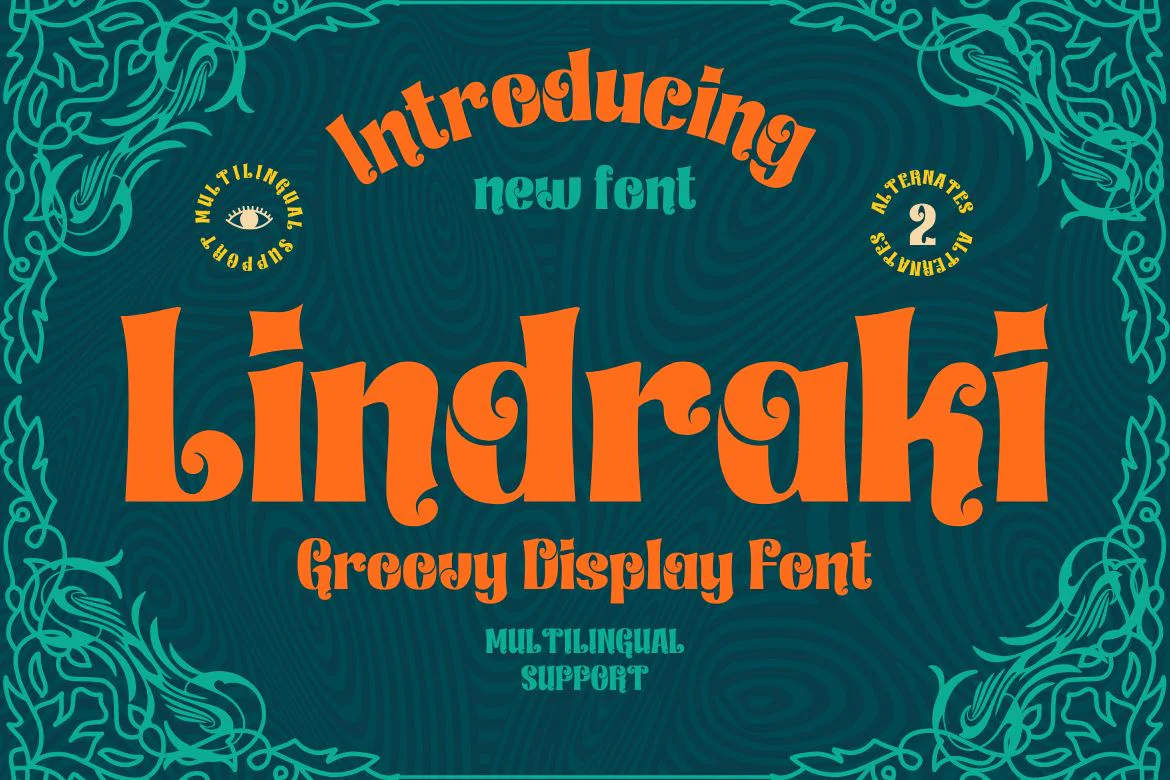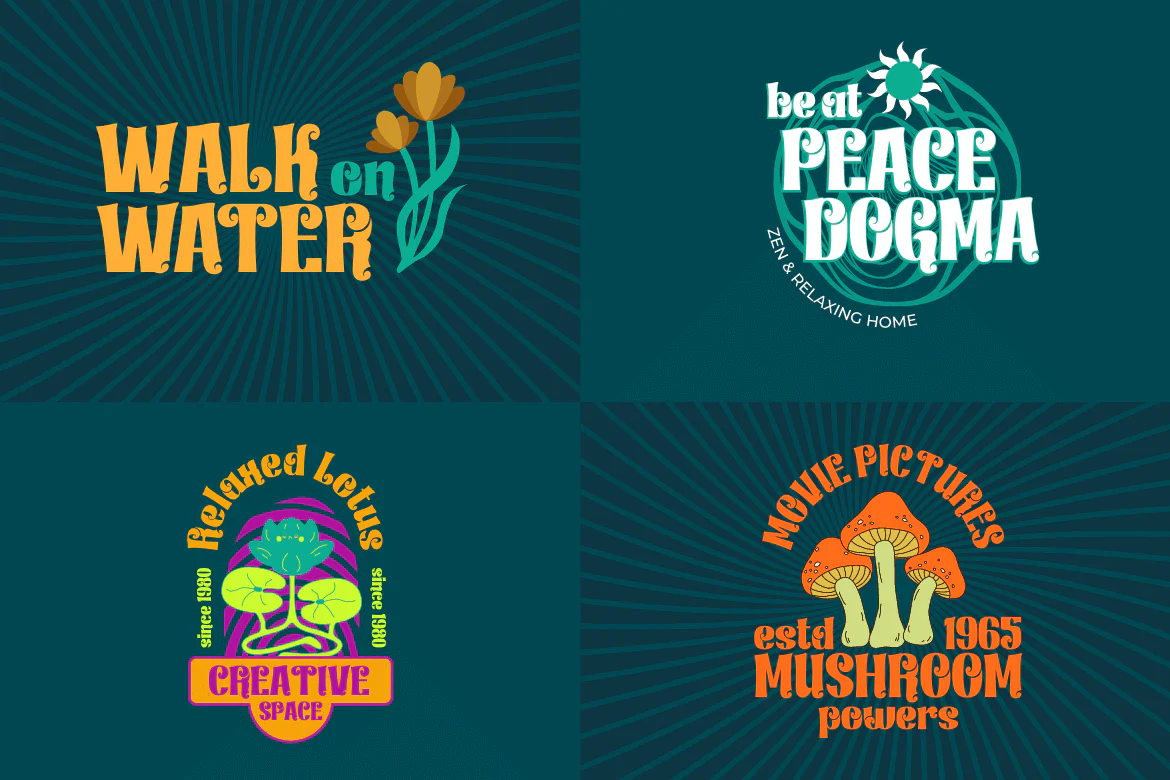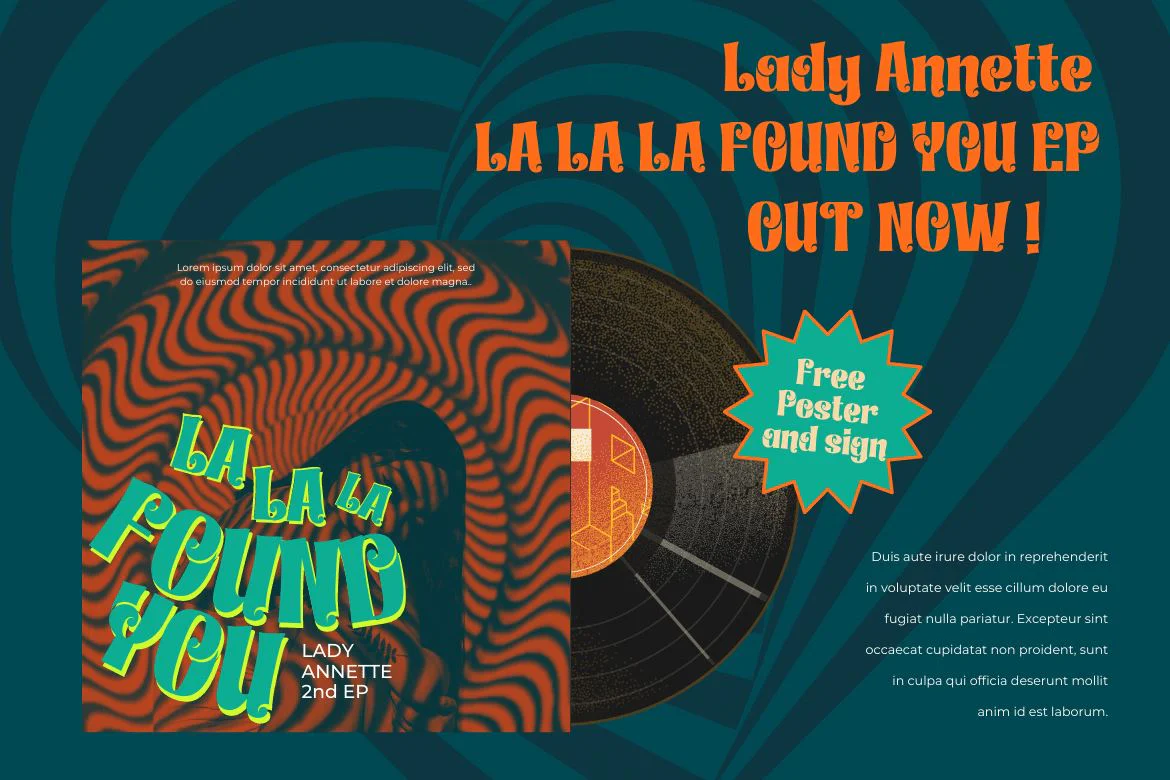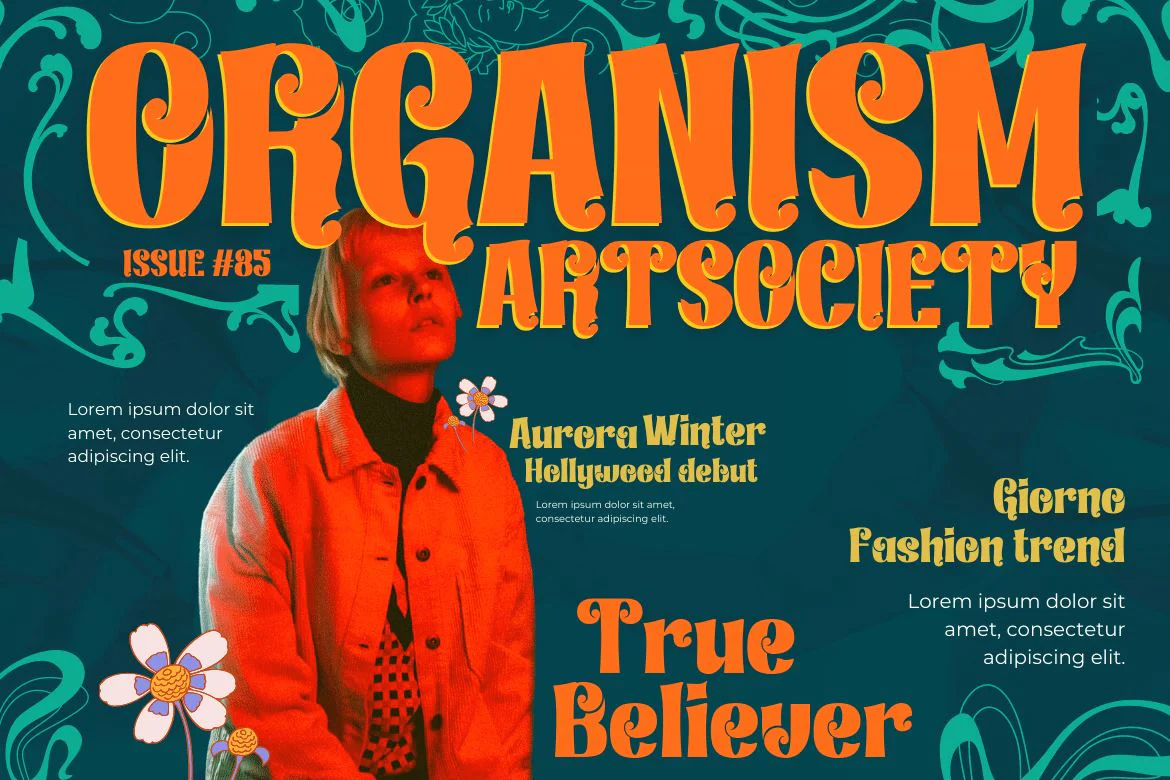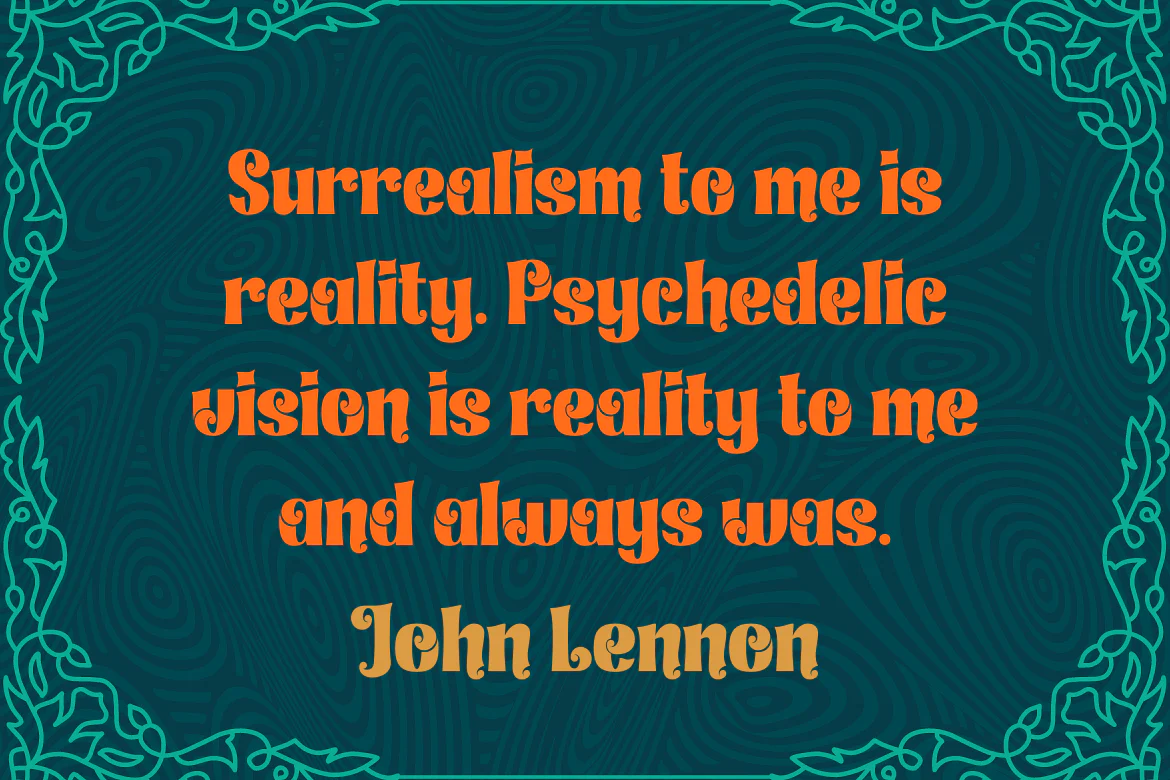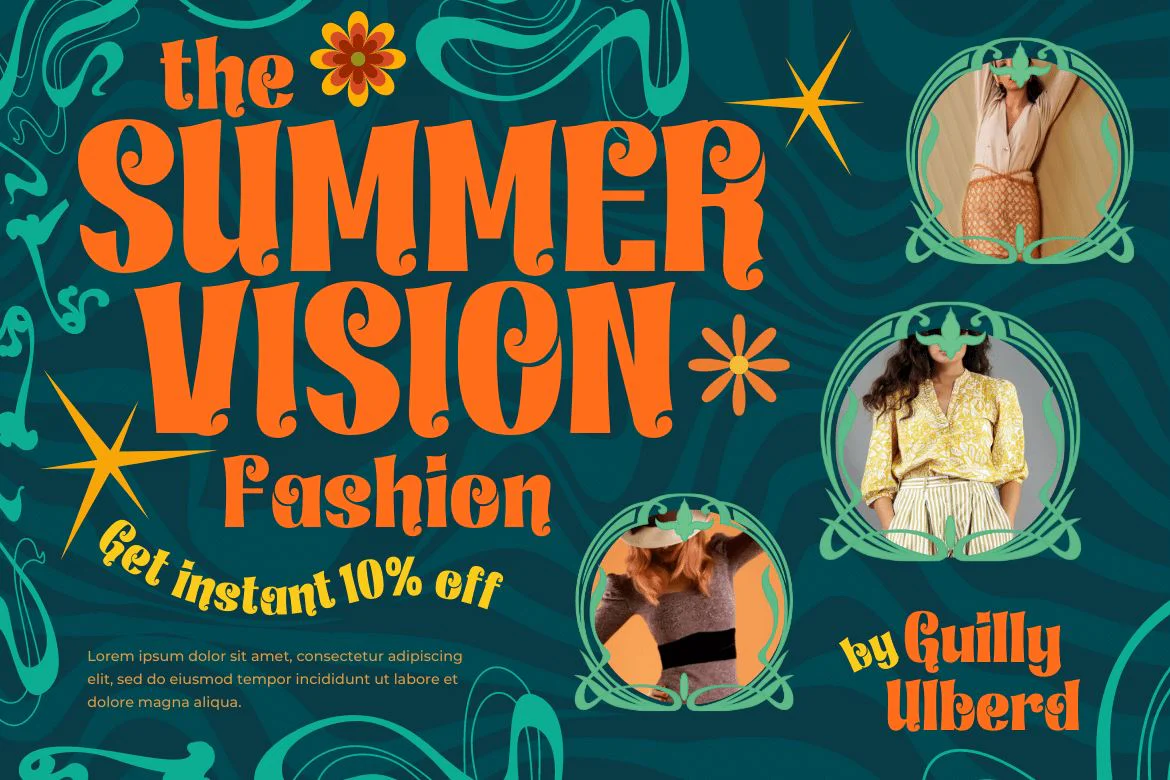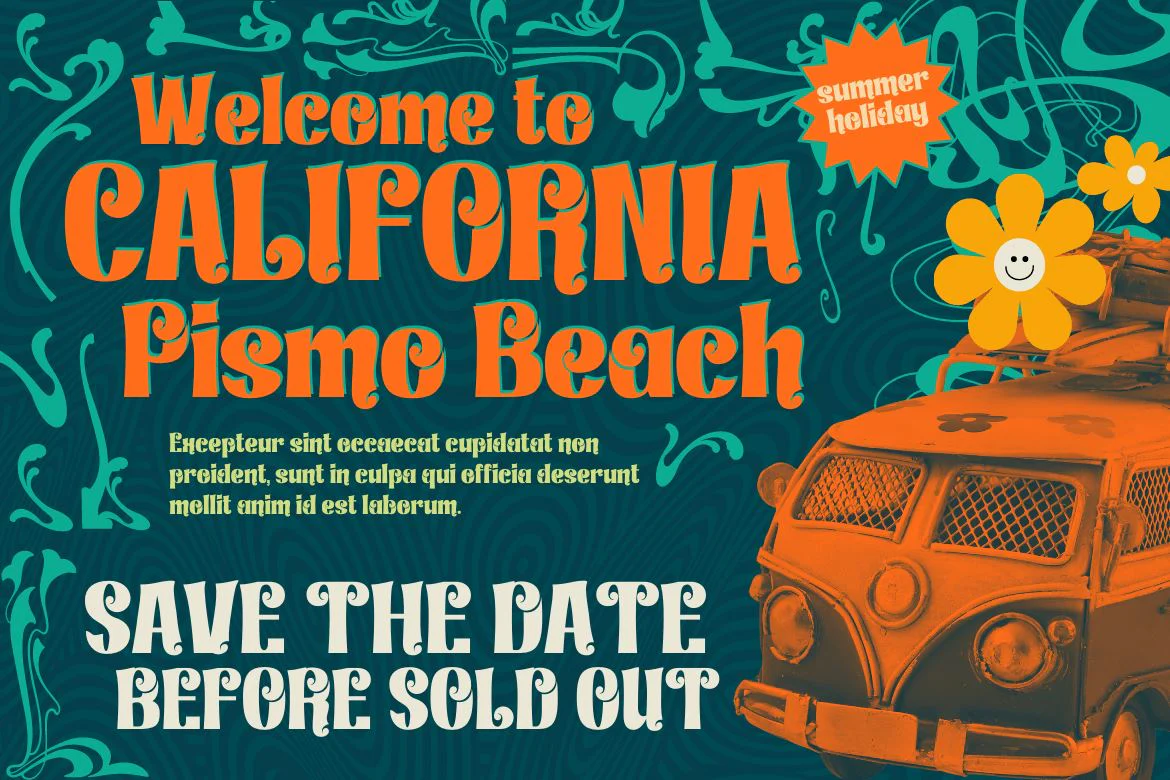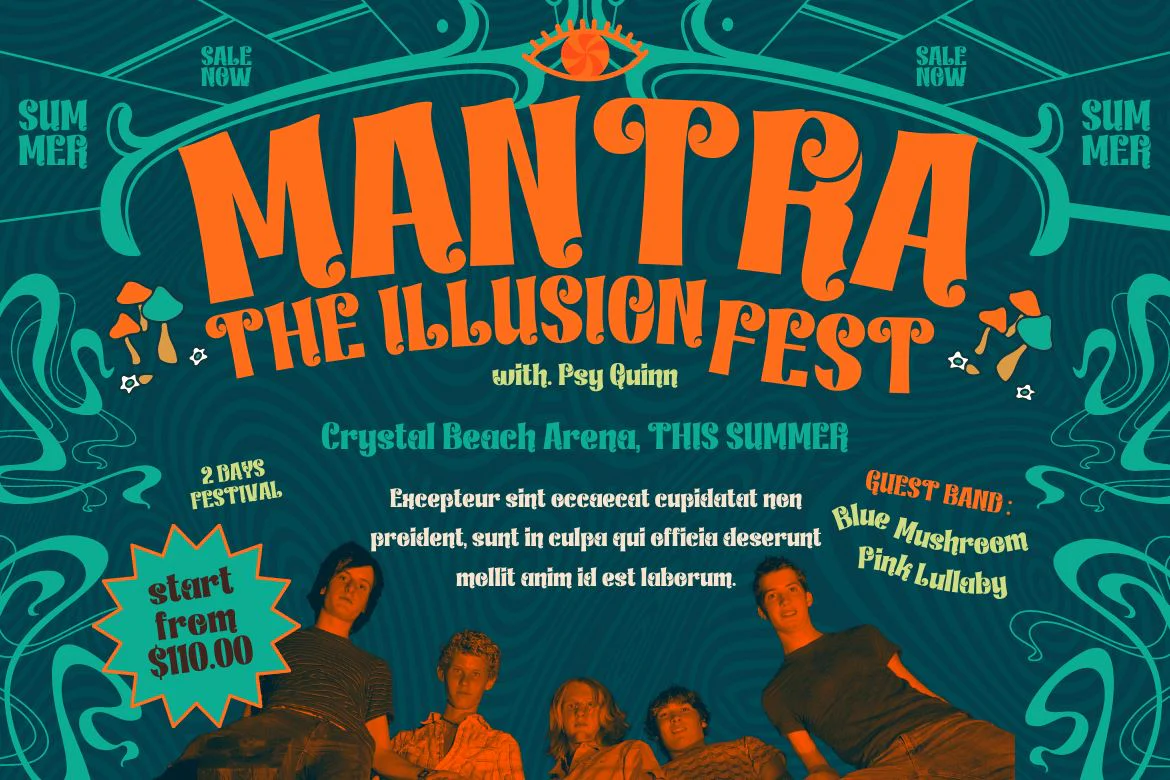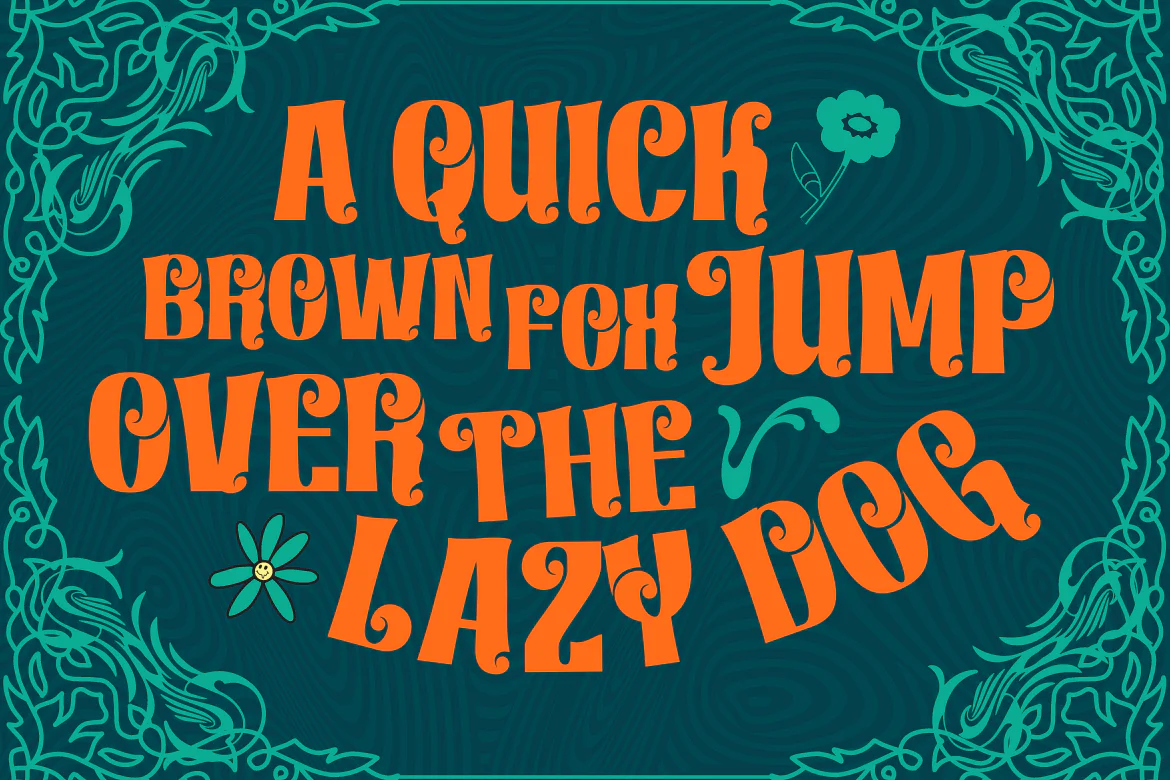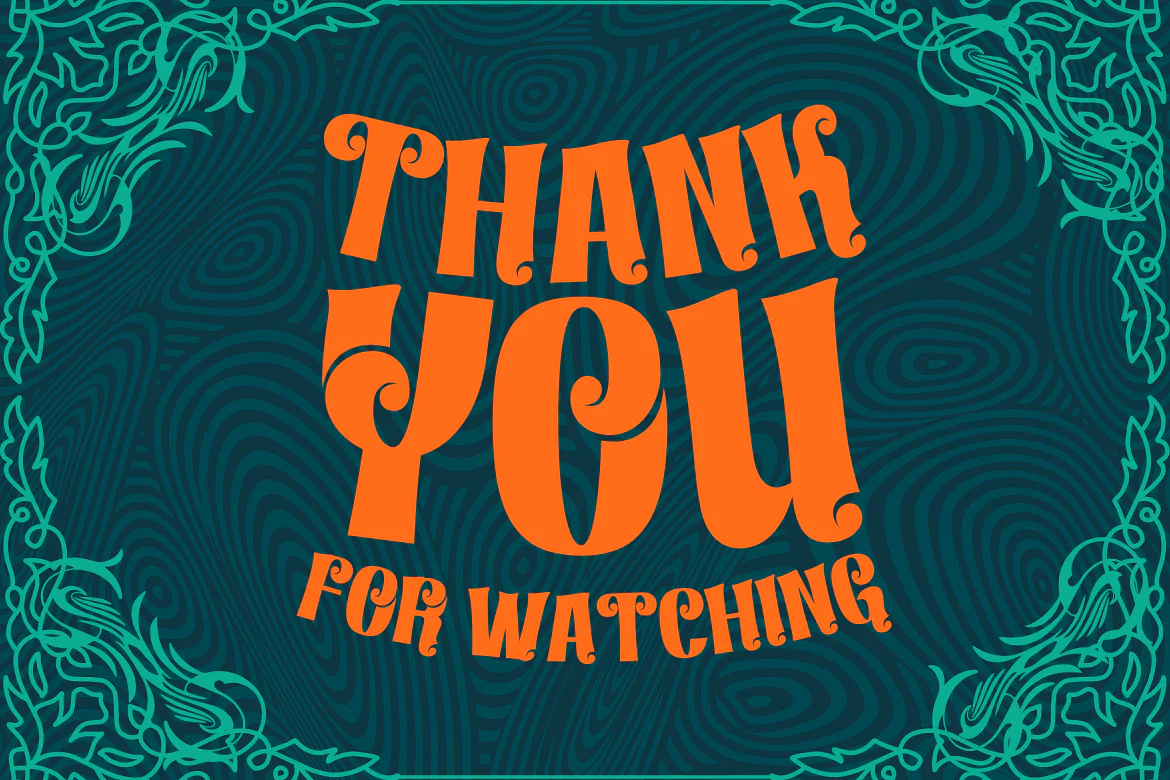
Lindraki | Groovy Retro Font
The Lindraki Groovy font is a very geometric and crooked font with high contrast between thin and bold lines and shapes. This font has an elegant and distinct style that makes it visually different from many other fonts. It makes your design stand out from the rest.
This font will give a unique touch to your design. Never put off using this cool font, as it will help you give extra zest to all kinds of work.
This fun font has precisely defined Curves and the subtle strokes of the typeface make this font very pleasing to the eye. So what are you waiting for? Stop procrastinating and incorporate it into your designs right away!